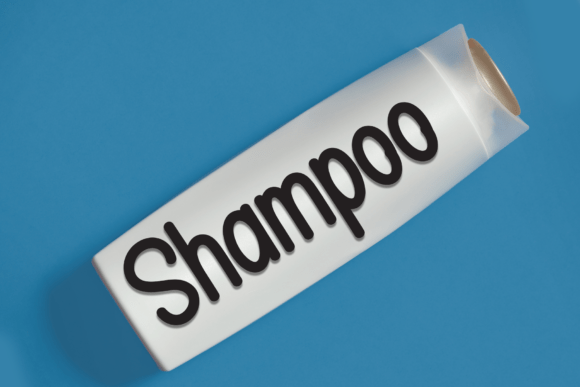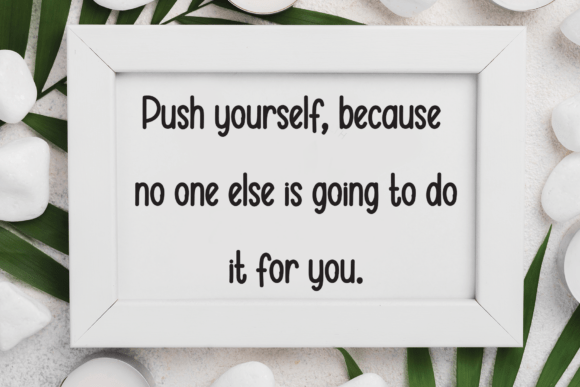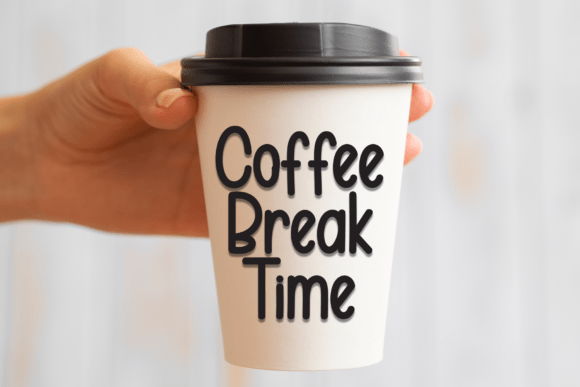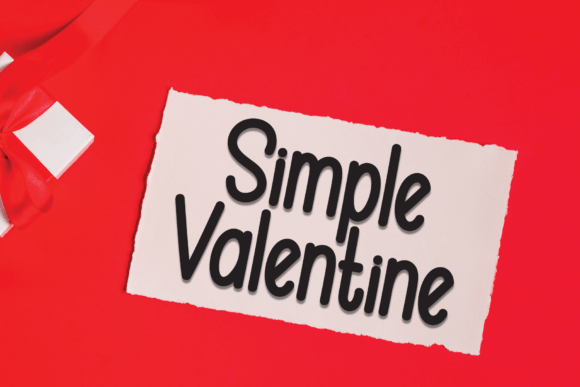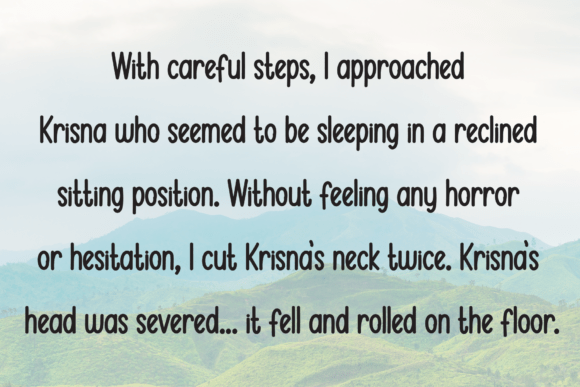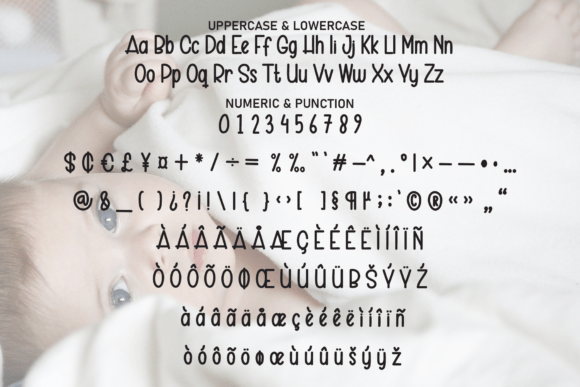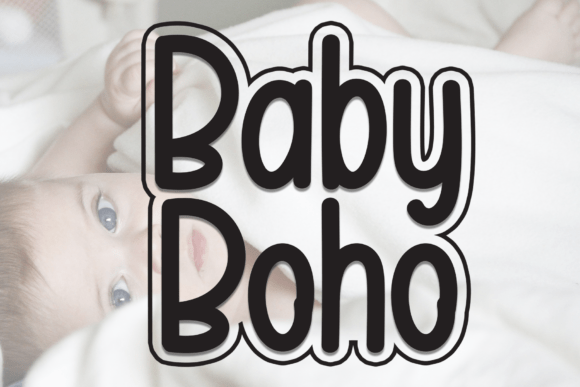
Baby Boho Font: Elevate Your Designs with Confident Curves and Dynamic Strokes
In the world of typography, fonts play a crucial role in conveying the tone and personality of a brand. For designers and crafters looking to make a statement, the Baby Boho Font is an excellent choice. This bold script font is designed to bring confident curves and dynamic strokes to your designs, making it perfect for impactful branding, standout headlines, modern logos, posters, packaging, and more.
The Power of Baby Boho Font
The Baby Boho Font is a game-changer for designers who want to add a touch of personality to their work. With its energetic flow and thick letterforms, this font is sure to grab attention and leave a lasting impression. Whether you’re designing for fashion, food, or lifestyle, this script adds a powerful personality with a handcrafted edge that’s hard to ignore.
Key Features of Baby Boho Font
- Bold and Confident: The Baby Boho Font features bold and confident curves that make it perfect for headlines, titles, and branding.
- Dynamic Strokes: The font’s dynamic strokes add a touch of energy and movement to your designs, making them more engaging and dynamic.
- Handcrafted Edge: The font’s handcrafted edge gives it a unique and personalized feel that’s perfect for designers who want to add a touch of personality to their work.
- Versatile: The Baby Boho Font is versatile and can be used for a variety of design projects, including branding, packaging, posters, and more.
Perfect for Impactful Branding
Branding is all about creating a lasting impression, and the Baby Boho Font is designed to help you do just that. With its bold and confident curves, this font is perfect for creating logos, business cards, and other branding materials that make a statement. Whether you’re a fashion brand, food blogger, or lifestyle entrepreneur, this font is sure to help you stand out from the crowd.
Standout Headlines and Modern Logos
The Baby Boho Font is also perfect for creating standout headlines and modern logos. Its energetic flow and dynamic strokes make it a great choice for designers who want to create eye-catching titles and headings that grab attention. Whether you’re designing a poster, flyer, or social media graphic, this font is sure to make your text stand out.
Packaging and Posters
The Baby Boho Font is not just limited to digital designs; it’s also perfect for packaging and posters. With its bold and confident curves, this font is sure to make your packaging and posters stand out on store shelves and in crowded spaces.
Tips for Using Baby Boho Font
- Use it sparingly: While the Baby Boho Font is bold and confident, it’s best to use it sparingly to avoid overwhelming your design.
- Pair it with contrasting fonts: Pairing the Baby Boho Font with contrasting fonts can help create visual interest and add depth to your design.
- Experiment with colors: The Baby Boho Font looks great in a variety of colors, so don’t be afraid to experiment and find the perfect hue for your design.
The Baby Boho Font is a powerful tool for designers and crafters who want to add a touch of personality to their work. With its bold and confident curves, dynamic strokes, and handcrafted edge, this font is perfect for impactful branding, standout headlines, modern logos, posters, packaging, and more. Whether you’re designing for fashion, food, or lifestyle, this script font is sure to make a statement and leave a lasting impression.